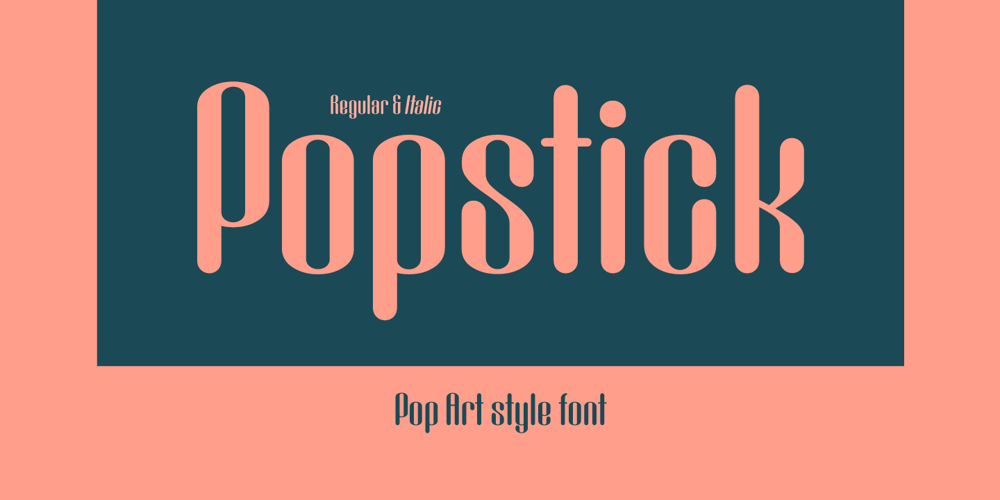
Popstick Font Family was designed by Kadek Mahardika and published by Creativemedialab. Popstick contains 2 styles and family package options. A simple and cool retro, pop art, stylish font for your design. Popstick has a modern, clean and fresh look with nice perfect rounded shapes. This font is best suited for commercial and editorial uses like advertising, apps, sports brand, packaging, logos, headers, corporate identity and much more.